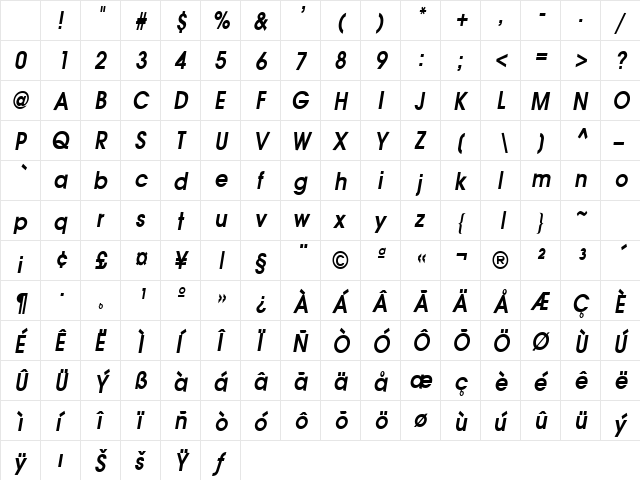
Complete AvanteCondensed Bold-Oblique glyph index. Displaying only characters natively supported by AvanteCondensed Bold-Oblique font.
AvanteCondensed is a composed and adaptable typeface that performs quietly and consistently across a wide range of design contexts. The slanted form adds forward momentum and visual energy. Its bold stroke weight gives it real presence on the page. Its narrow stance lets it pack a punch even in space-constrained designs.